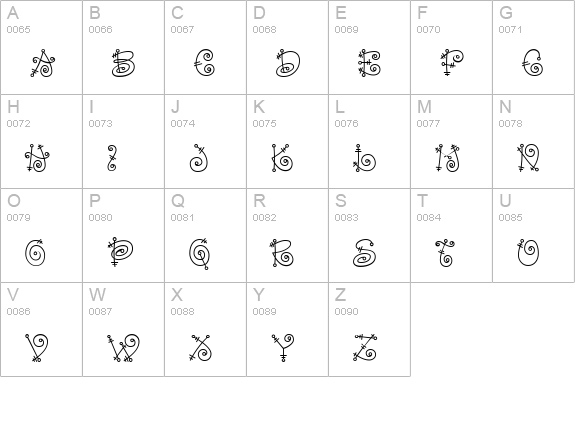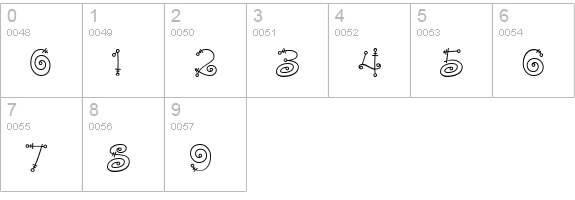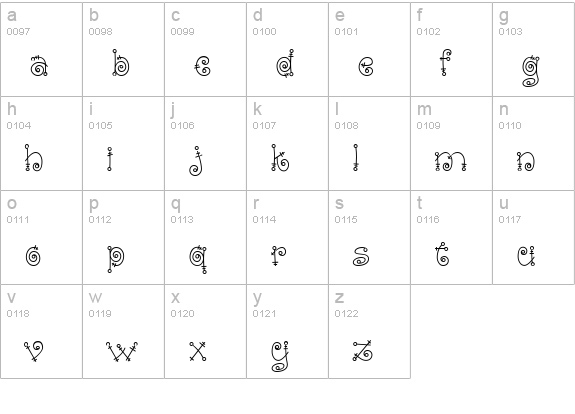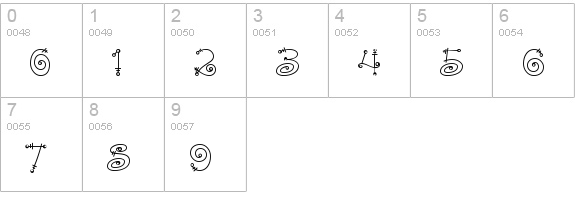
Fairytale Font Details
The Fairytale font is a whimsical and enchanting typeface inspired by magical storybook illustrations. Its delicate curves and intricate details evoke a sense of wonder and nostalgia, perfect for adding a touch of fantasy to your designs. This fairy tale-inspired font is free to download at FontsMarket.com, offering you the opportunity to bring a touch of magic to your projects without any cost. Let Fairytale font transport you to a world of fairy tales and make your designs truly enchanting.